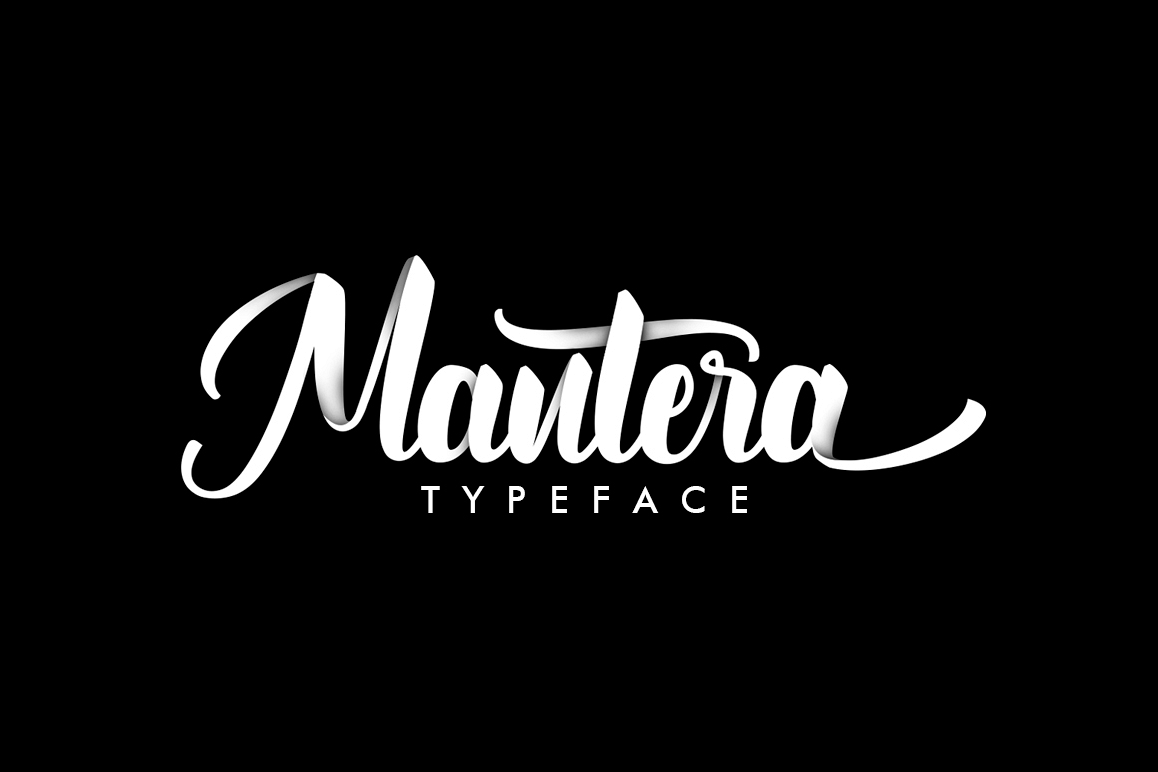
Mantera Script
Mantera
INTRODUCING!!
Mantera is a type of script with clear and bright clean
appearance.This font is great for your creative projects like logos,
printed quotes, invitations, cards, product packaging, headers,
logotype, letterhead, posters, clothing designs, labels, and so on.
Mantera is equipped with uppercase, lowercase, numbers, accents
(Multilingual characters) Consists of +564 glyphs (includes some
OpenType Features such as ligatures, Stylistic Alsternate Characters,
Stylistic Set, Swash, etc.). It also has many tails with different
shapes and widths to give it a look.